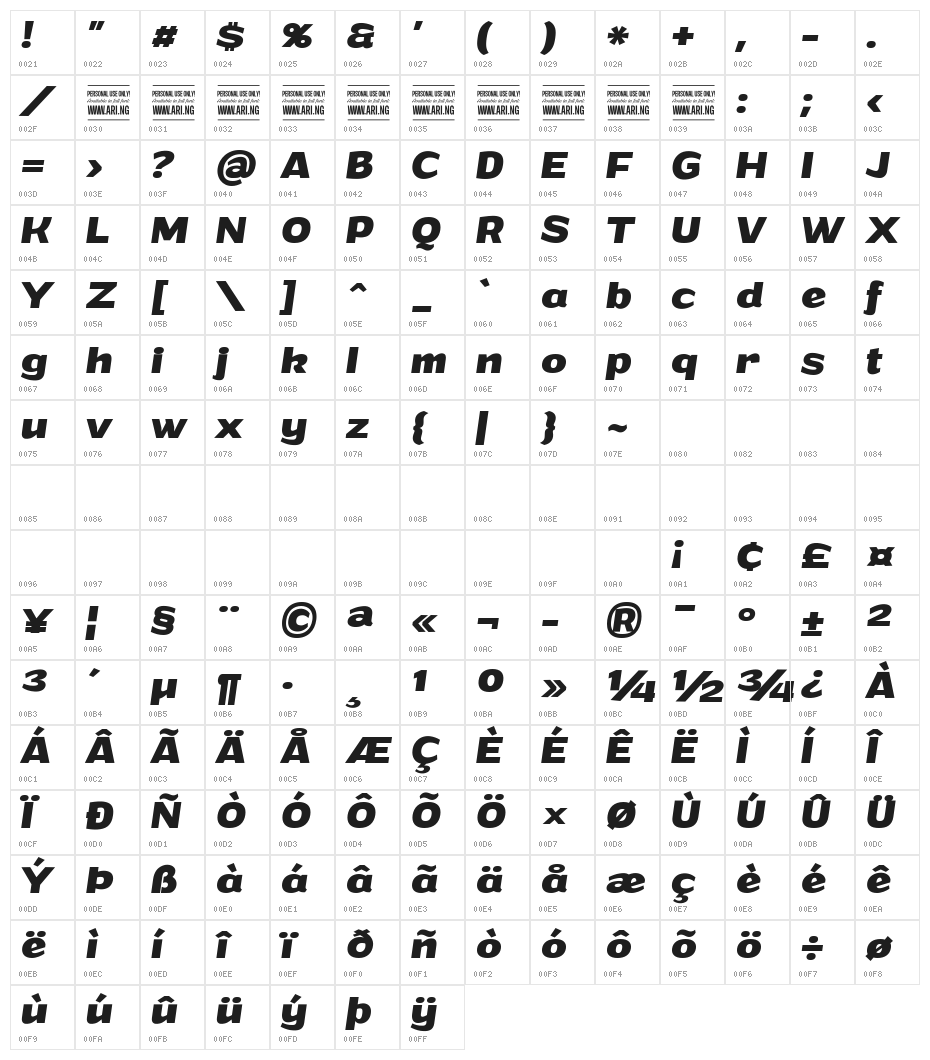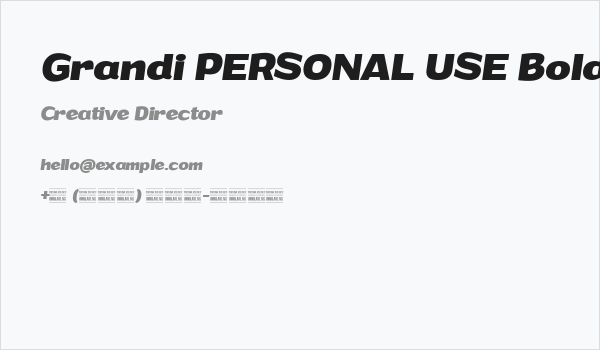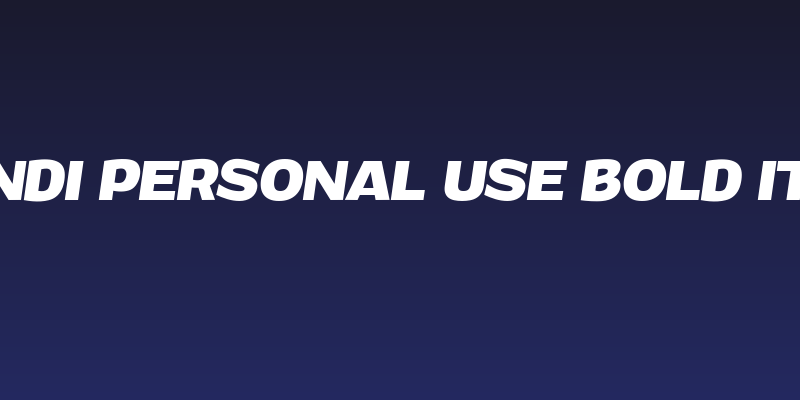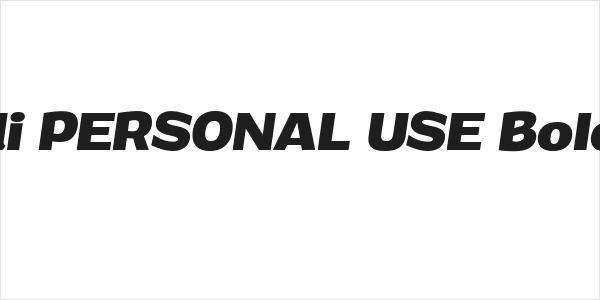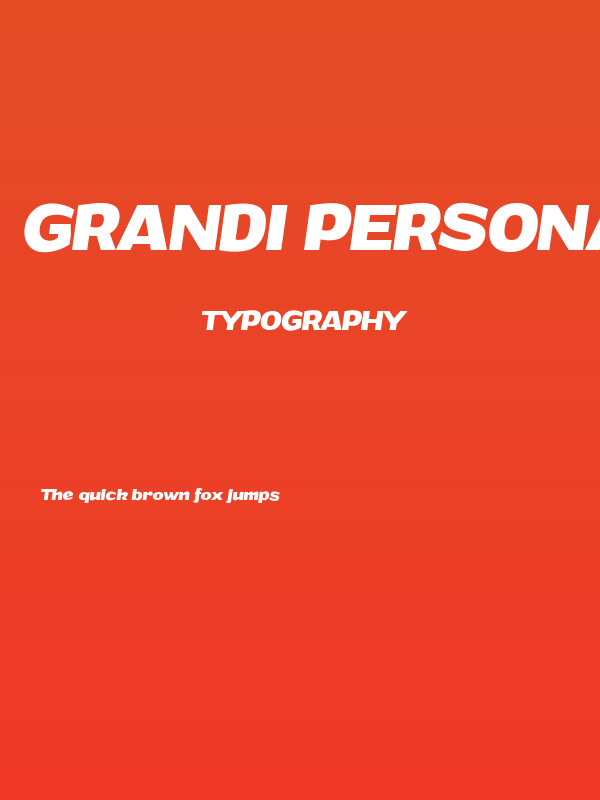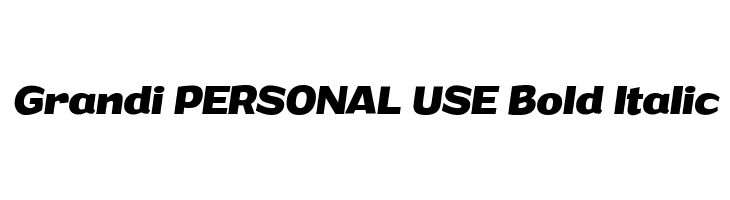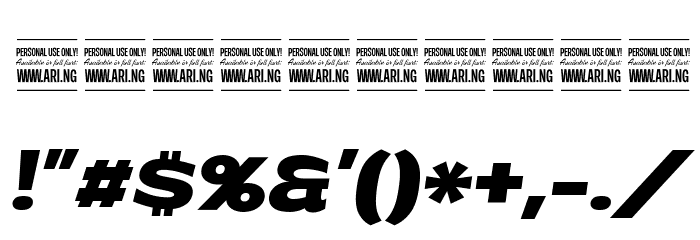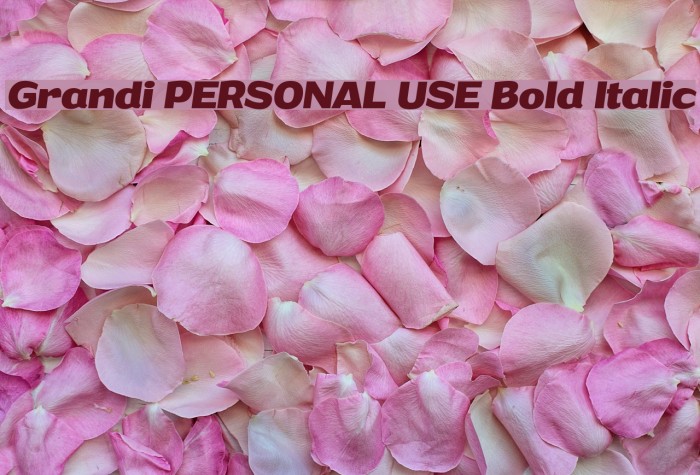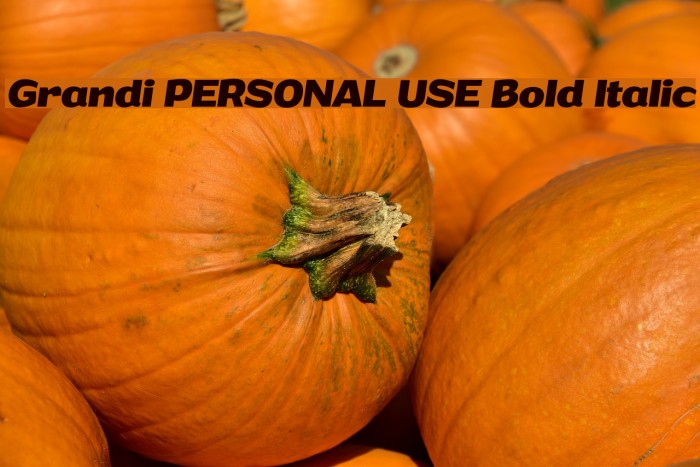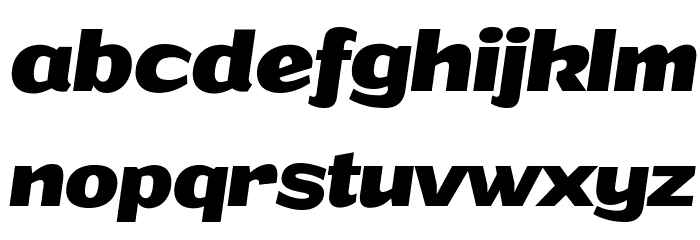
Grandi PERSONAL USE Bold Italic Font
Grandi PERSONAL USE Bold Italic Description
This font exhibits a bold and italicized style, characterized by its strong, dynamic presence. The letters are slightly slanted, giving a sense of motion and energy. The strokes are thick and consistent, providing a robust and impactful appearance. The uppercase and lowercase letters maintain a uniform style, ensuring readability and cohesion. The numbers and special characters are designed to match the boldness of the alphabet, making them stand out effectively. Overall, this font is designed to capture attention and convey a sense of urgency or importance.
| Proposed Projects | Ideal for headlines, posters, and branding materials where a bold statement is needed. |